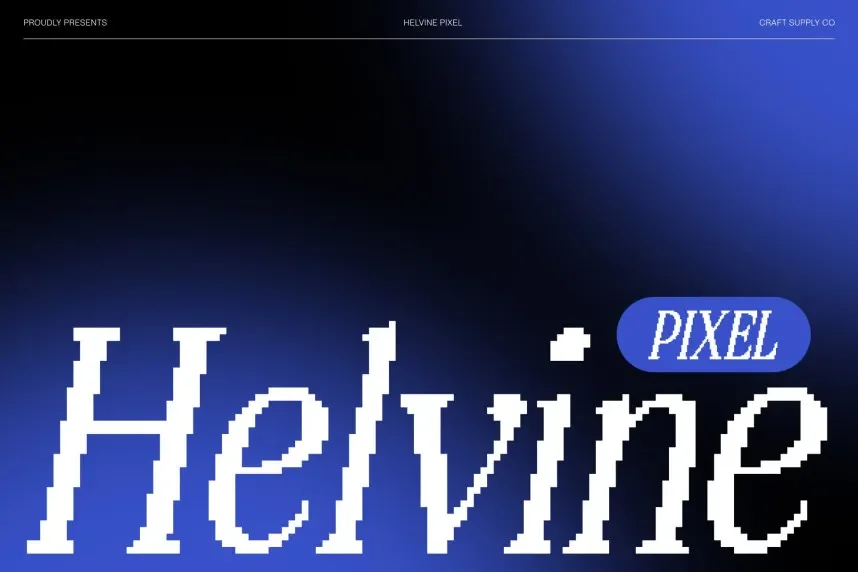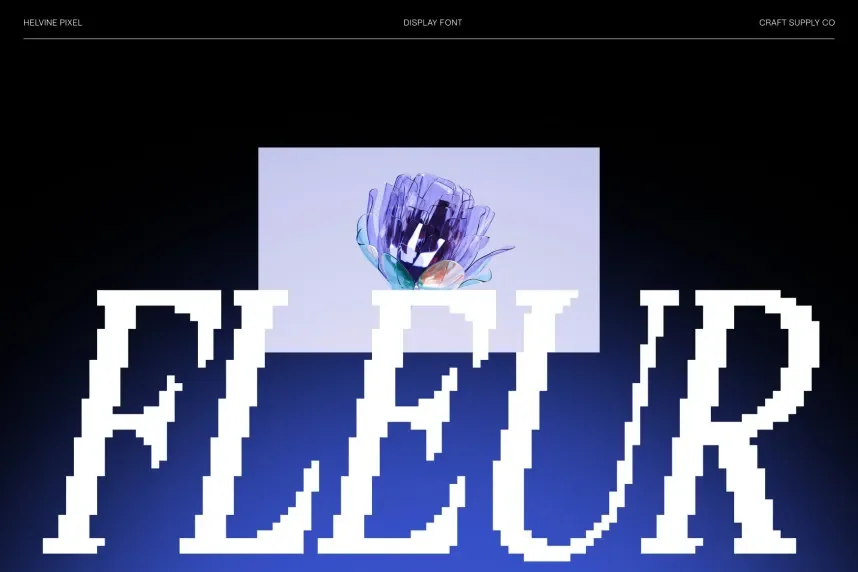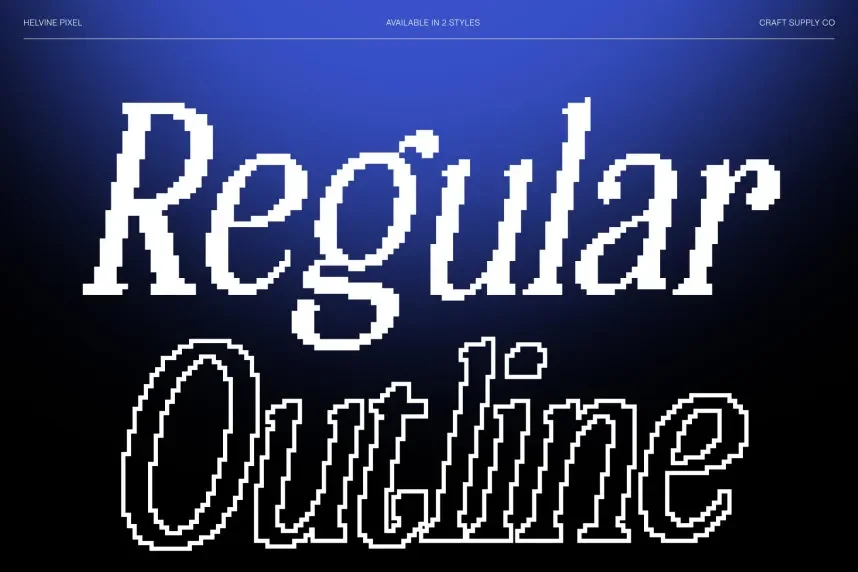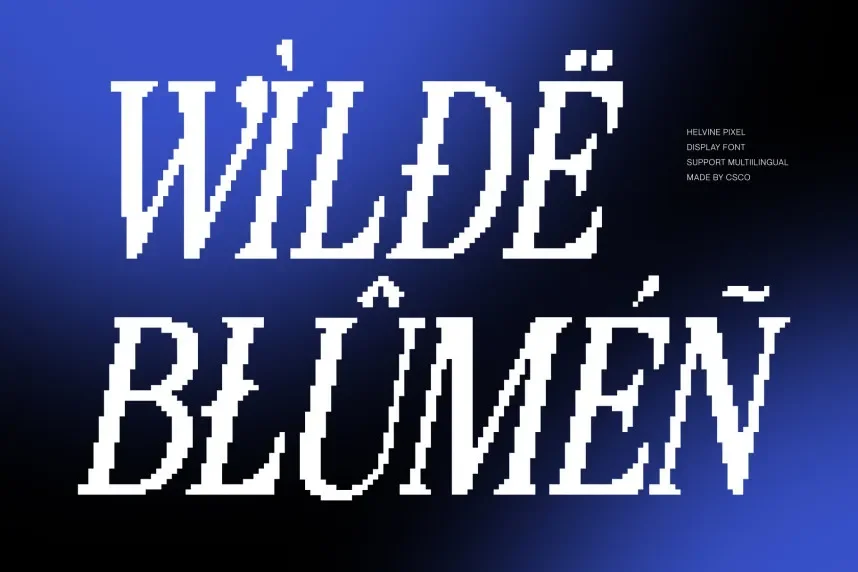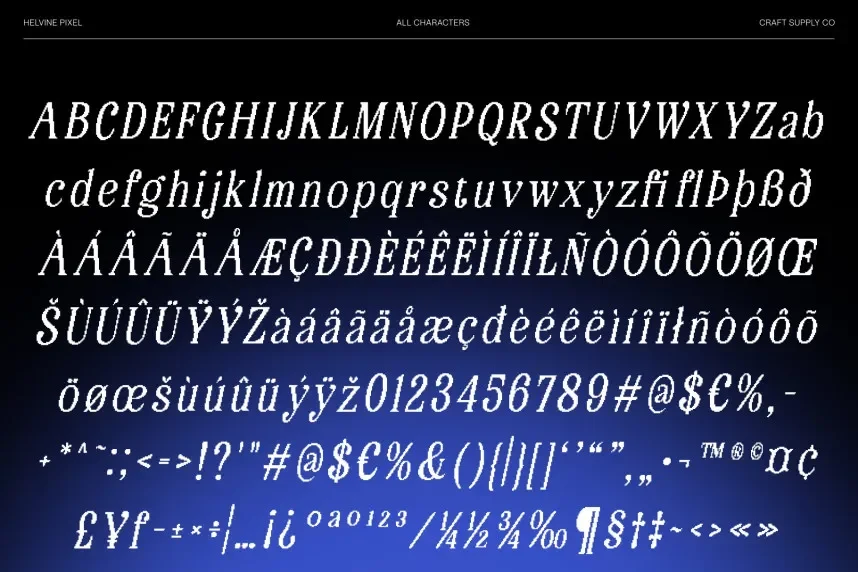
Helvine Pixel Font is a clean and precise pixelated typeface designed for digital projects. Its crisp edges and consistent pixel design make it ideal for tech-related branding, web design, and app interfaces.